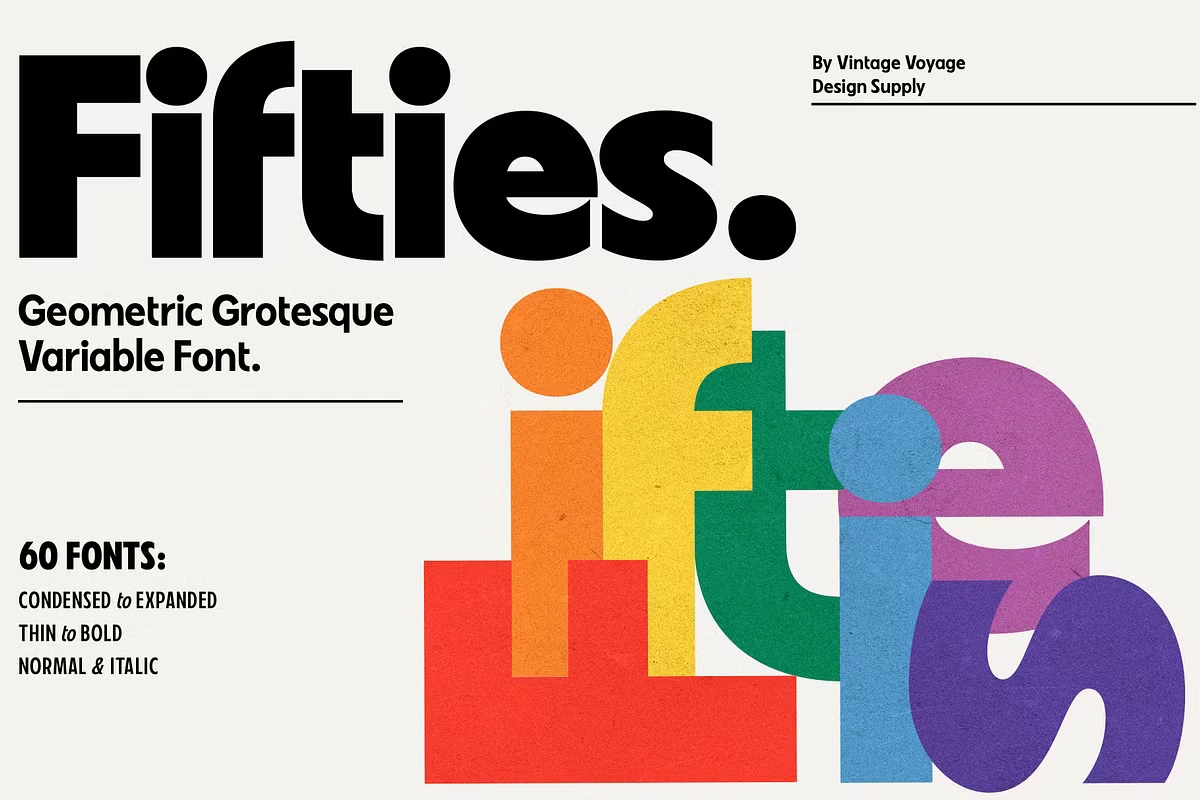
Fifties Font: A Modern Take on Classic Design
Fifties is a unique blend of classic sans serif geometric shapes and subtle humanistic grotesque elements. Designed to bring the aesthetics of 20th-century modernism into the present, this typeface is a perfect mix of vintage charm and contemporary style. With its carefully crafted letterforms, Fifties offers a timeless appeal that suits both nostalgic and cutting-edge design projects.
This versatile typeface comes in 60 distinct styles, including italics, allowing you to experiment with various typographic expressions. Whether you need an airy and elegant look with Expanded Thin, a bold and striking impact with Condensed Bold, or a dynamic and sharp feel with Expanded Bold Italic, Fifties has a style to match your creative vision. From theatre posters and party flyers to movie titles, magazine headers, vintage t-shirts, and even web services, this font family adapts effortlessly to any project.
Available in both OpenType (OTF) and Variable Font (TTF) formats, Fifties provides extensive typographic features such as stylistic alternates, fraction figures, subscript and superscript numbers, tabular figures, and various typographic spacing options. With a range of weights from Thin to Bold and widths from Condensed to Expanded, this font family offers endless possibilities for designers looking to create eye-catching and expressive typography.